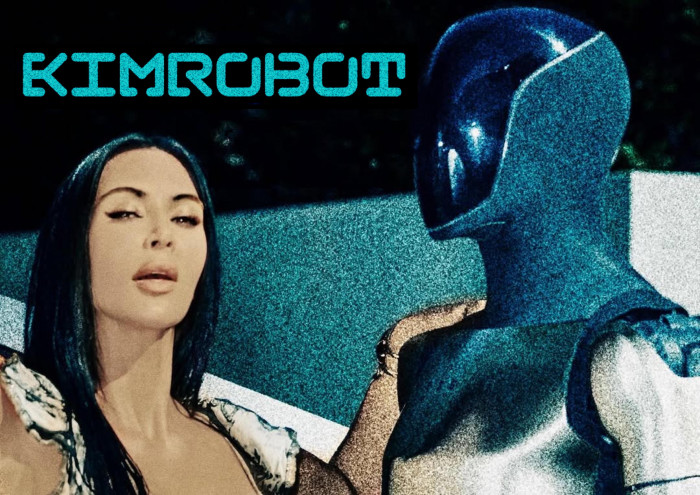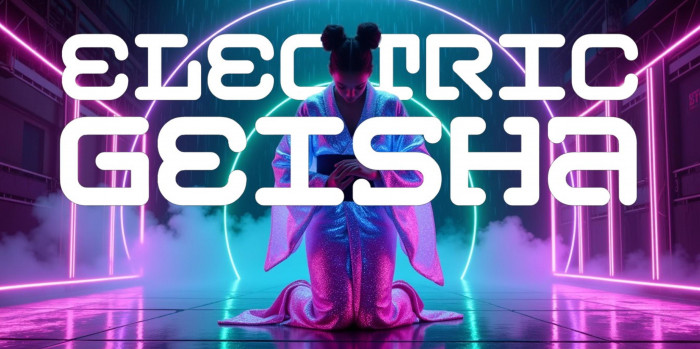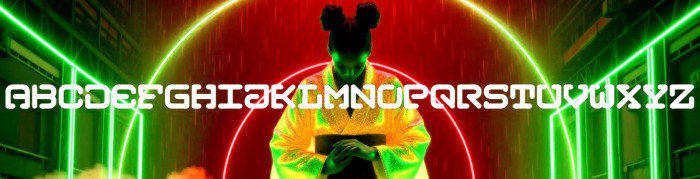
Unicase with alternates. I was trying a monospaced font, but...
Love the uniformity of the letters~
@tortoiseshell: Thanks a lot, pal. My initial idea was to strive for that uniformity. Glad you like it.
It is very pretty. ( J maybe too much rolled in, and E could be more edgy, but 10/10 for me). And examples are fun  :-)
So Friendly Font...jiji & About this are Know over Littles Electric Fonts for then i say this Friendly for Me 😅
Really nice work. Love the alternates.
@Peter (Petruuccio): Thank you very much. Btw, I added a new, less rolled J, but I didn't like the more edgy E.
This looks pretty nice!
I love it!
Letters: AaCcDdHh